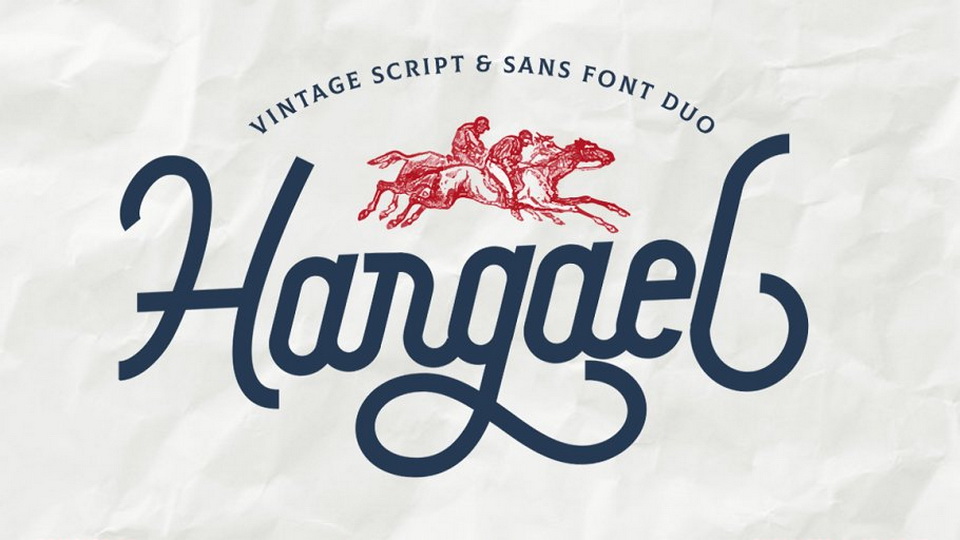
Download Hargae font,a monoline script inspired from modern vintage and retro style. All characters have an imperfect shape that gives a natural look in design.
Designer: Vultype Co